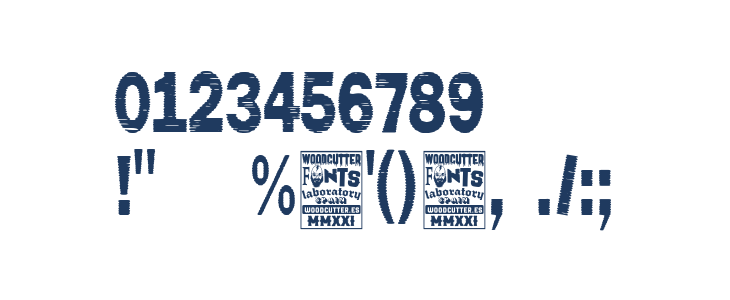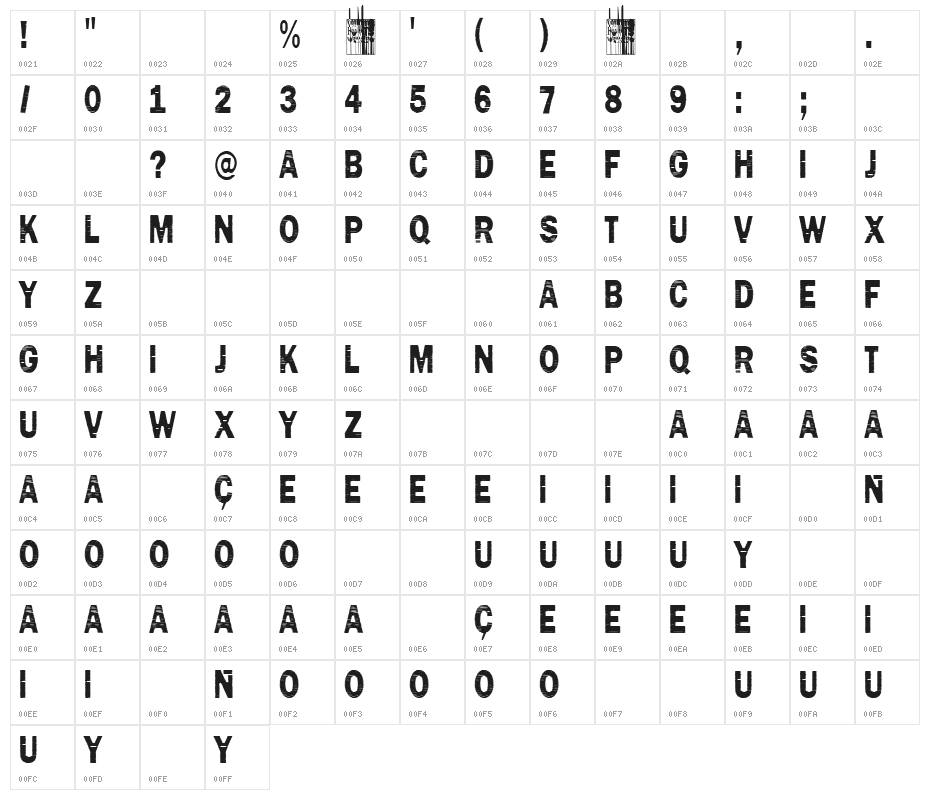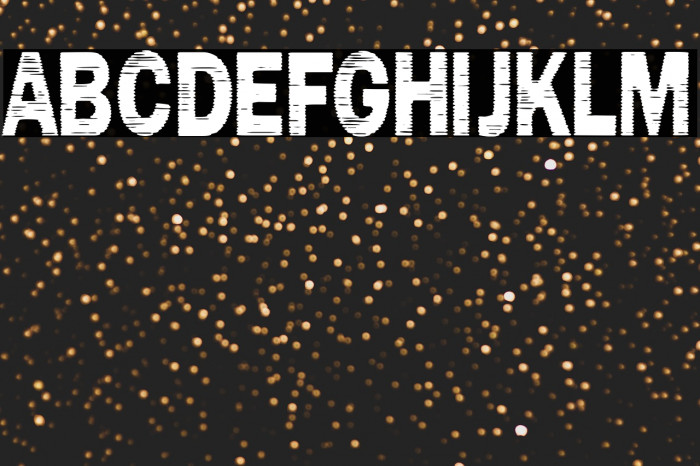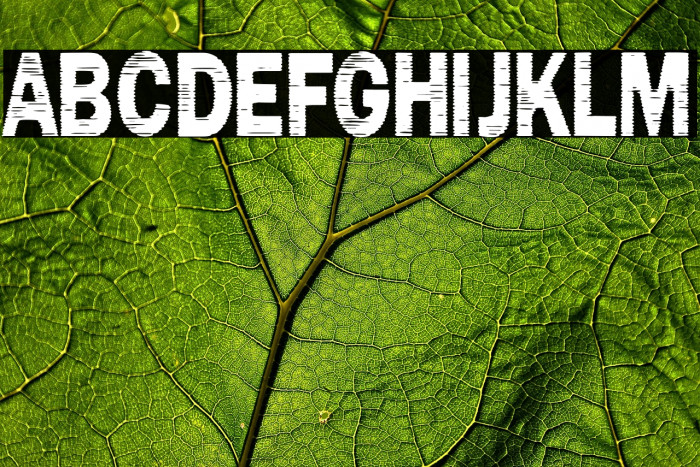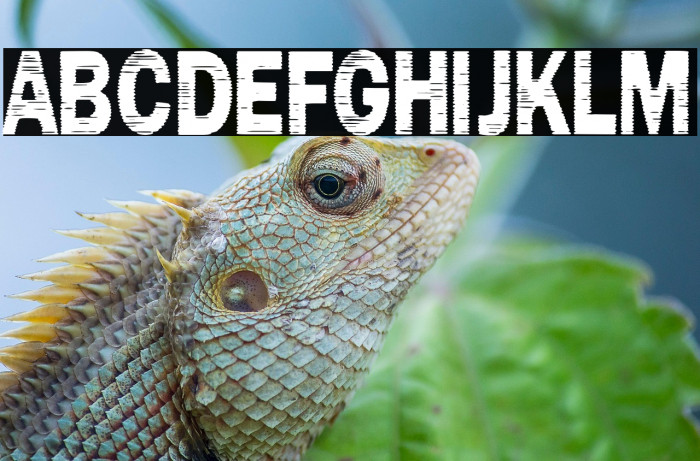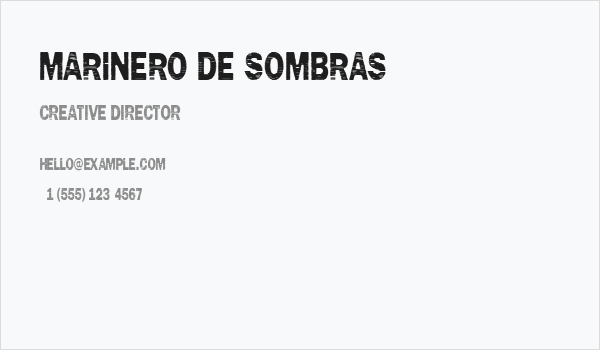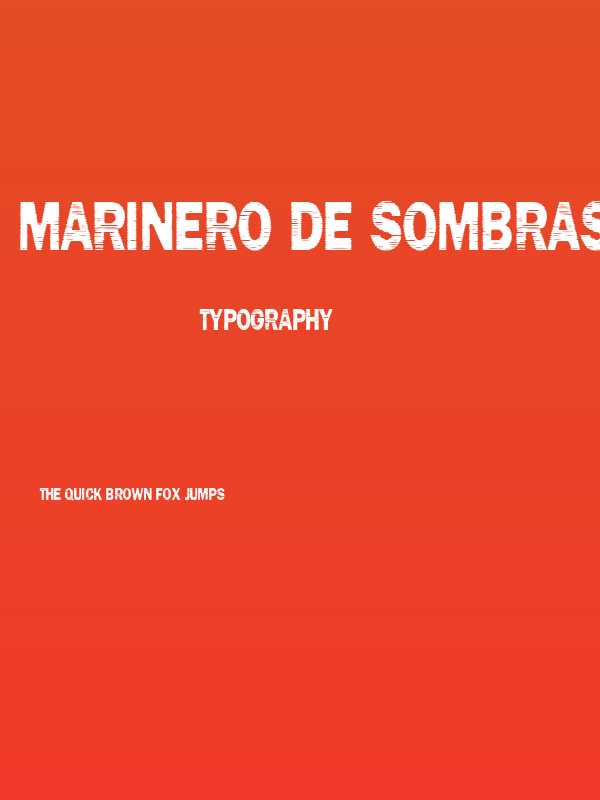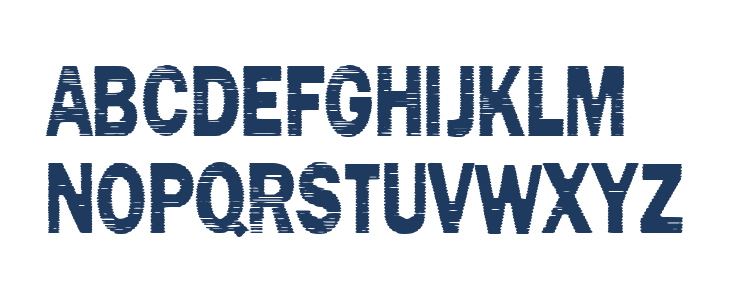
Marinero de Sombras Font
Marinero de Sombras Description
This font features a bold, distressed style with a textured appearance that mimics the look of weathered wood or aged paint. The characters are uppercase and numerals, with a rough, uneven edge that gives a sense of movement and dynamism. The design is highly decorative, making it suitable for eye-catching headlines or artistic projects. The texture within each letter adds depth and character, creating a visually striking effect that stands out in any design.
| Proposed Projects | Ideal for vintage-themed posters, album covers, branding for rustic or nautical businesses, and any project requiring a bold, artistic statement. |